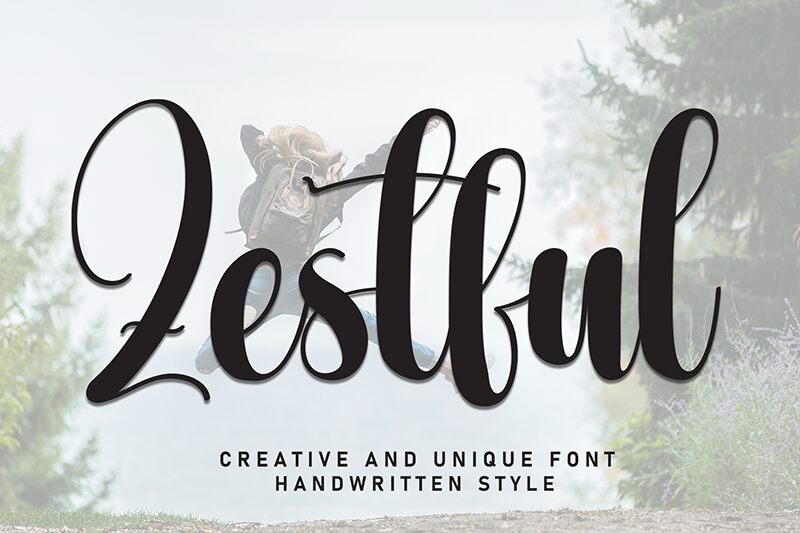
Zestful
Zestful font by Andi Moz is a sleek and elegant calligraphy font with decorative flourishes. It has expressive and flowing characters that add a lively feel to any project. The modern script style of this free resource will give an attracting look that amazes viewers wherever they look.
Good for slogans, quotes, names and signatures, Zestful is also ideal for branding projects, advertisement copies, photography captions, product packaging, business cards design etc. Social media posts design would be another suggestion where the typeface could blend seamlessly into your visual identity.